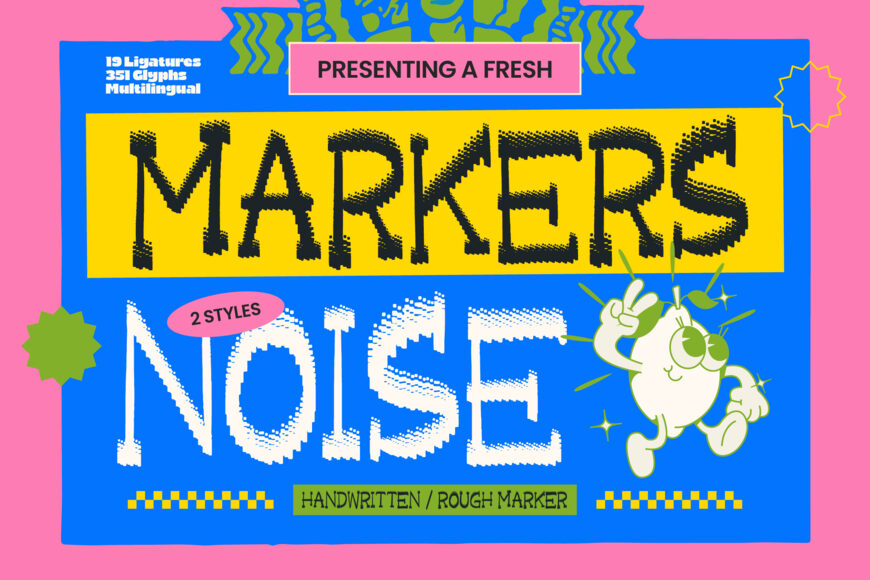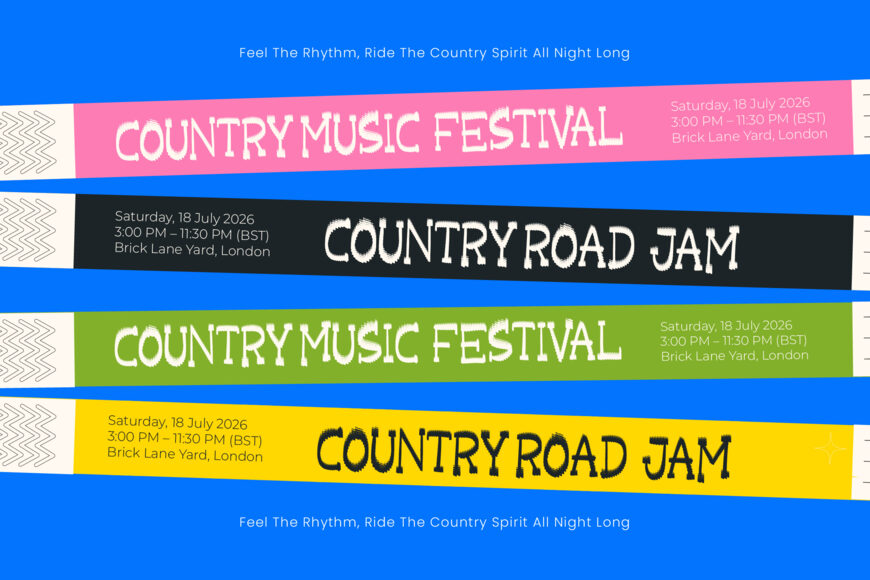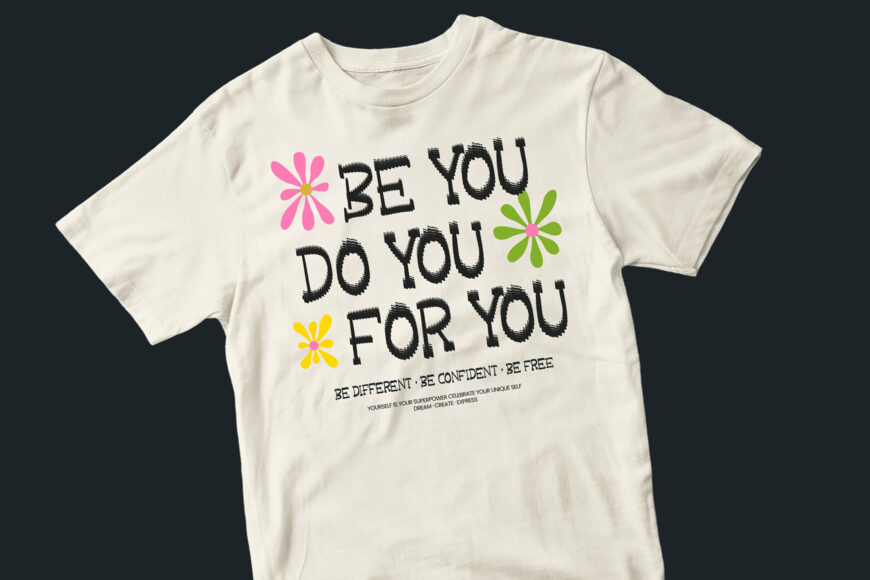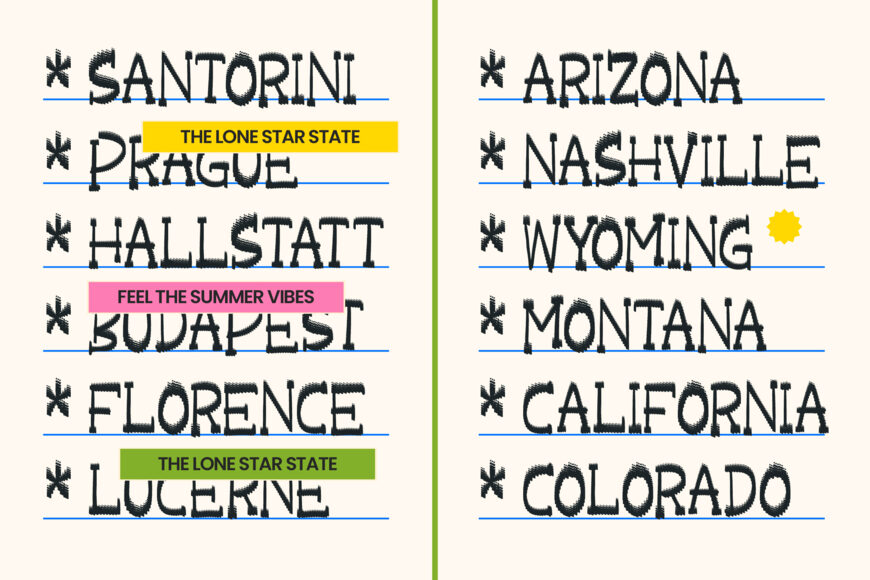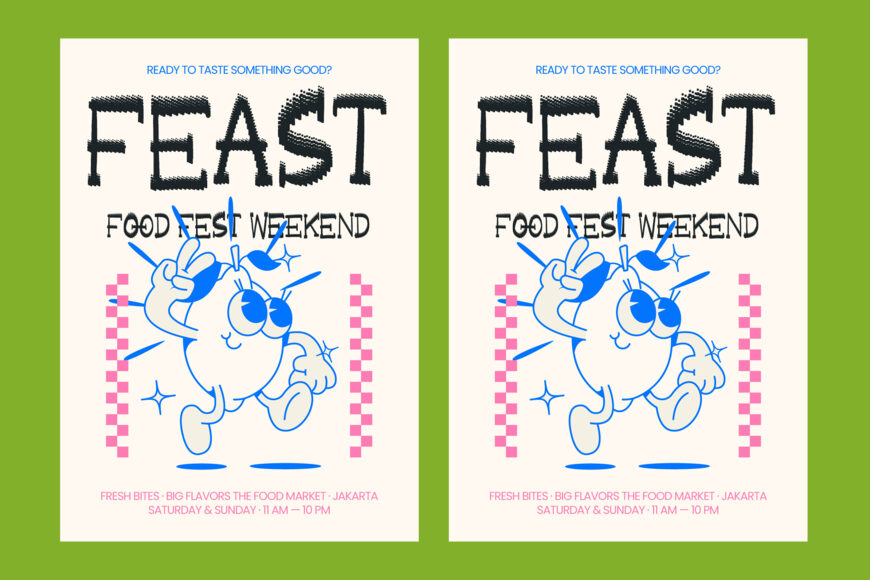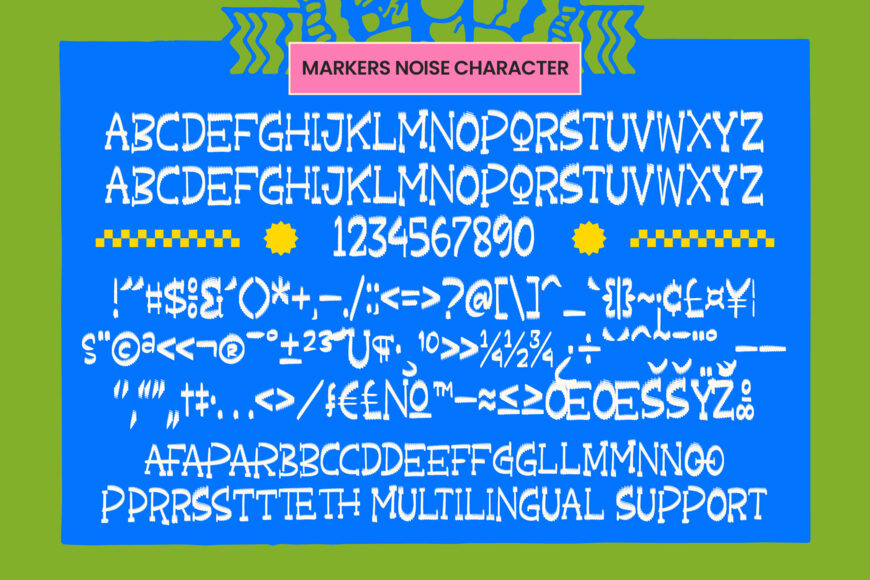
Bring bold, rebellious character to your designs with Markers Noise, a rough handwritten marker font inspired by authentic marker strokes. Its halftone dither texture adds depth and vintage lo-fi charm, replacing sterile digital lines with an organic, handcrafted feel that stands out.
Featuring 351 glyphs and 19 custom ligatures, it creates a natural rhythm and flexible layouts. Ideal for streetwear branding, edgy packaging, concert posters, editorial design, social media headers, and urban apparel, Markers Noise delivers high-impact visibility and a disruptive spirit for modern visual storytelling.